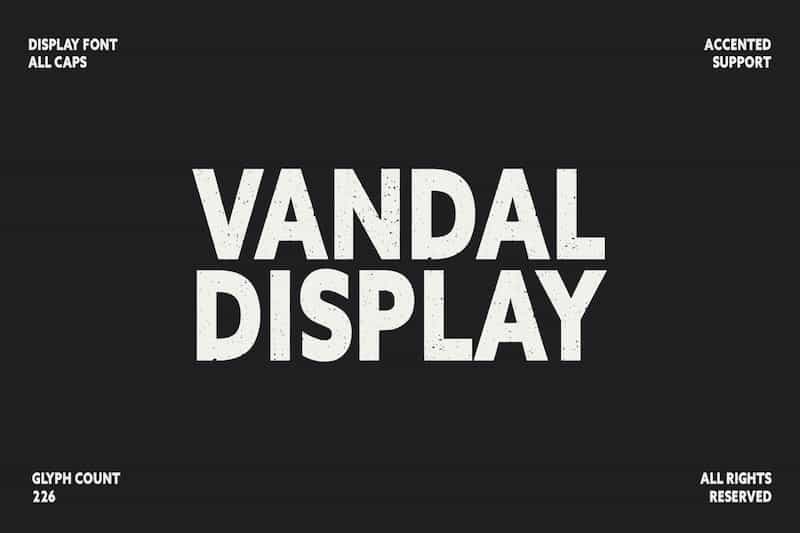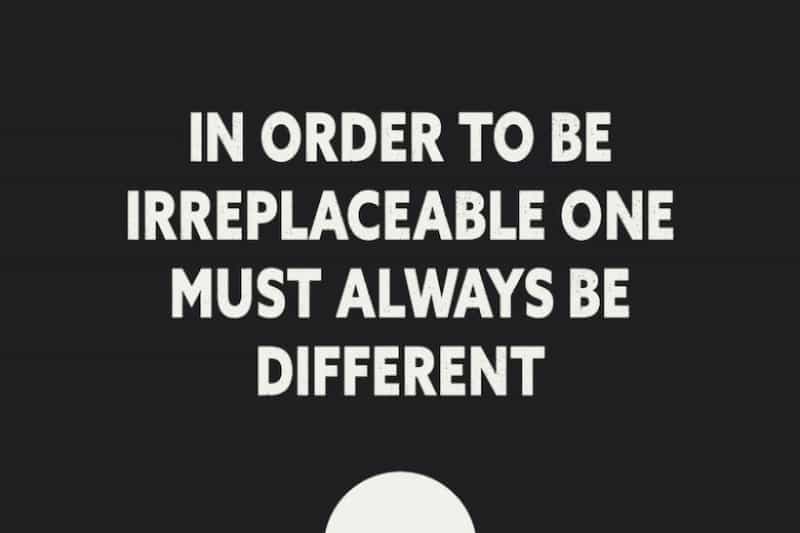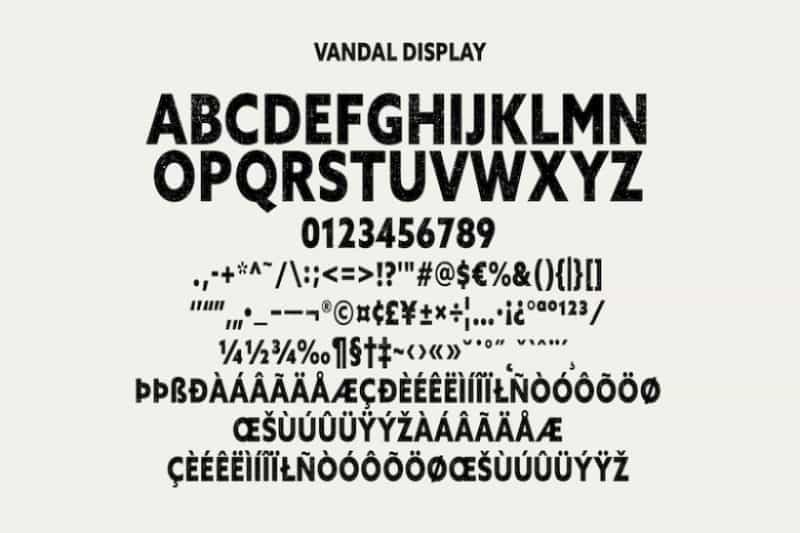
Vandal is a stylish contemporary sans serif display font with an explorative edge and classic aesthetics. Vandal features smooth curves and sharp edges for easy reading – an essential feature in a hard working font like Vandal.